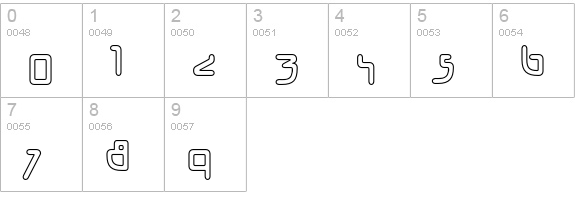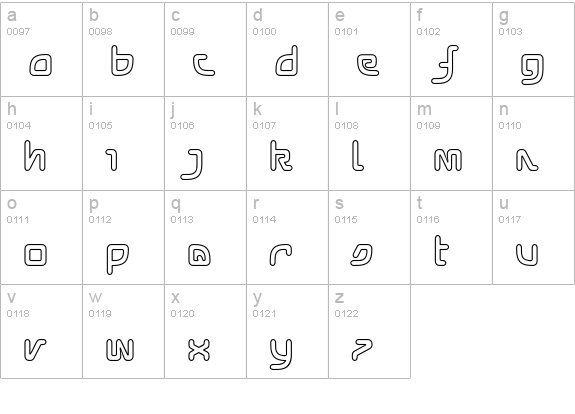
NeoTokio-Two is a modern and sleek font that exudes a futuristic and sophisticated vibe. Its clean lines and sharp edges make it perfect for a wide range of design projects, from branding to digital art. The font strikes the perfect balance between elegance and edginess, making it a versatile choice for those looking to make a bold statement. NeoTokio-Two is a unique typeface that will elevate any design it is used in, adding a touch of contemporary flair. Whether you are working on a corporate project or a creative endeavor, this font will help you stand out from the crowd. Best of all, NeoTokio-Two is available for free download at FontsMarket.com, making it accessible to anyone looking to add a touch of modernity to their designs. Download it today and unleash your creativity with this stunning font!